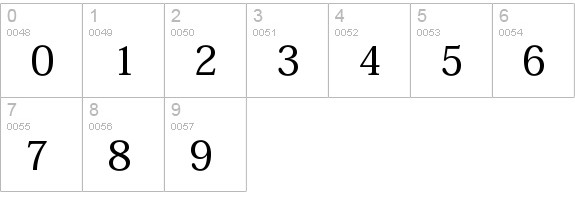
Kozuka Mincho Pr6N M Font Details
Kozuka Mincho Pr6N M font is a classic and elegant typeface that exudes sophistication and style. Its timeless design makes it perfect for a wide range of projects, from print materials to digital content. With its clean lines and balanced proportions, Kozuka Mincho Pr6N M font is a versatile choice for any designer looking to add a touch of refinement to their work. What's even better is that Kozuka Mincho Pr6N M font is available for free download at FontsMarket.com. This means that you can easily access this high-quality font without having to worry about any additional costs. Whether you're a professional designer or a hobbyist looking to elevate your projects, Kozuka Mincho Pr6N M font is a fantastic option that won't break the bank. Don't miss out on the opportunity to enhance your designs with the timeless beauty of Kozuka Mincho Pr6N M font – download it for free today at FontsMarket.com!